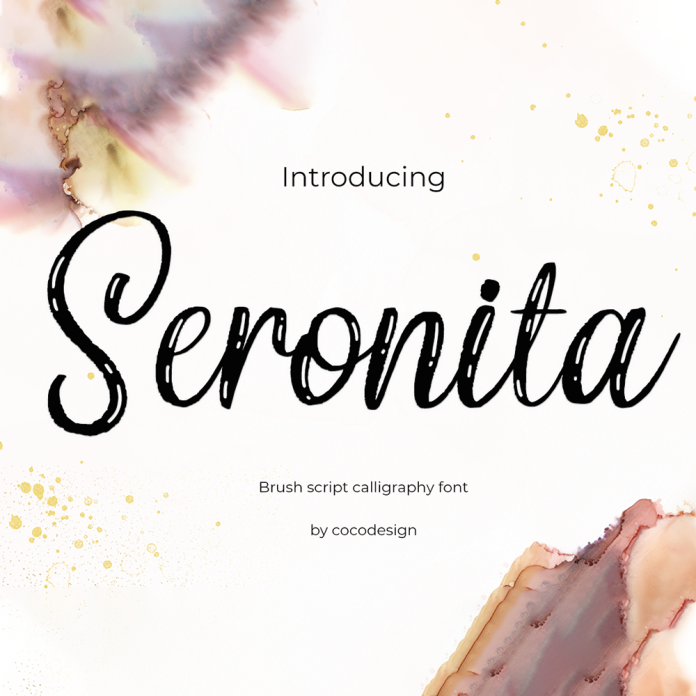
Seronita font is a stylish and elegant script font that exudes sophistication and charm. With its delicate strokes and flowing curves, this premium font is perfect for luxury branding, wedding invitations, and editorial design. Its unique design is sure to make any project stand out.